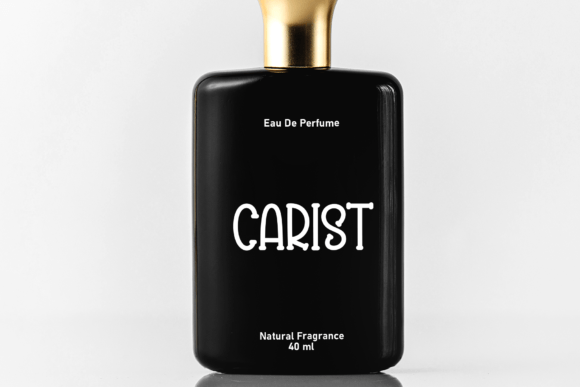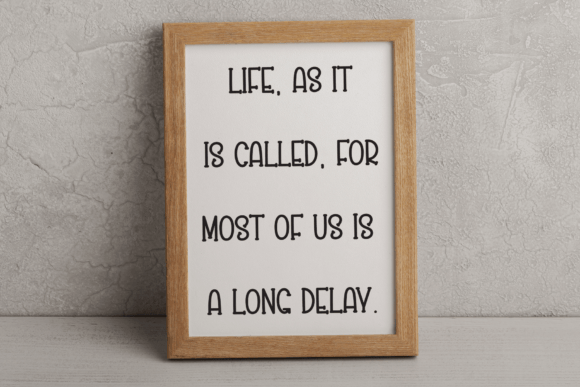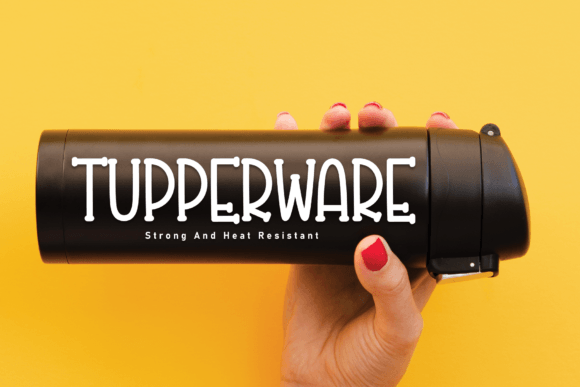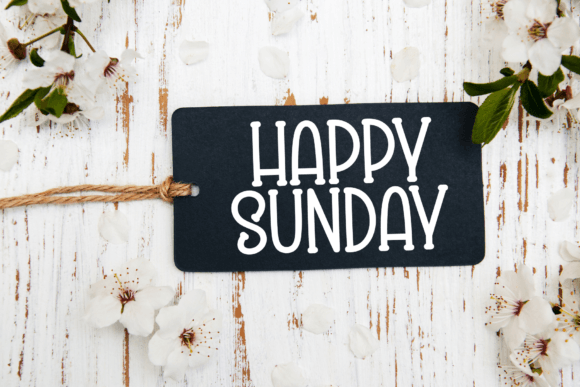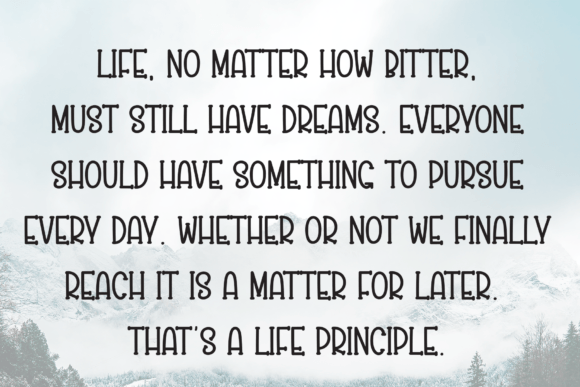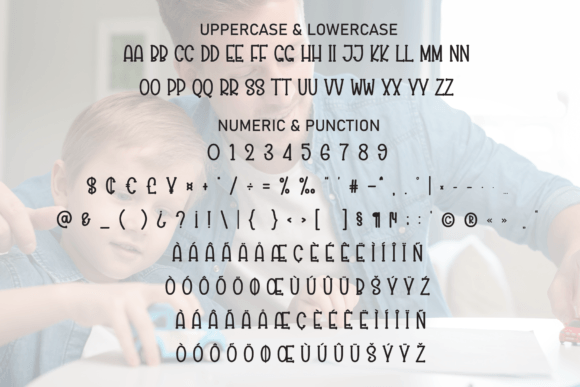
Introducing Father Font: The Perfect Handwritten Display Font for Your Designs
Are you looking for a font that can add a touch of warmth and friendliness to your designs? Look no further than Father Font, an endearingly handwritten display font that exudes joy and playfulness. With its charming and whimsical aesthetic, Father Font is perfect for infusing a delightful quirkiness into your projects, making it ideal for wedding invitations, cards, and any design that seeks a touch of fun and personality.
The Charm of Father Font
Father Font is a carefully crafted handwritten font that is designed to bring a sense of joy and carefree creativity to your designs. Its playful and charming aesthetic makes it perfect for designers and crafters who want to add a personal touch to their projects. Whether you’re creating wedding invitations, greeting cards, or any other design that requires a touch of whimsy, Father Font is the perfect choice.
What Makes Father Font Special?
So, what sets Father Font apart from other fonts? Here are a few features that make it special:
- Handwritten with love: Father Font is a handwritten font that is crafted with love and care, giving it a personal and unique touch.
- Warm and friendly: The font exudes warmth and friendliness, making it perfect for designs that require a touch of personality.
- Playful and whimsical: Father Font has a playful and whimsical aesthetic that is sure to add a touch of fun to your designs.
- Perfect for creative projects: Whether you’re a designer, crafter, or DIY enthusiast, Father Font is perfect for any creative project that requires a touch of personality.
How to Use Father Font in Your Designs
Using Father Font in your designs is easy. Here are a few tips to get you started:
- Wedding invitations: Father Font is perfect for wedding invitations, adding a touch of whimsy and romance to your designs.
- Greeting cards: The font is also great for greeting cards, making them more personal and special.
- Social media graphics: Father Font can add a touch of personality to your social media graphics, making them more engaging and fun.
- Branding and packaging: The font can also be used for branding and packaging, giving your products a unique and personal touch.
Tips for Pairing Father Font with Other Fonts
Pairing Father Font with other fonts can create a unique and interesting look. Here are a few tips for pairing Father Font with other fonts:
- Pair with a serif font: Pairing Father Font with a serif font can create a nice contrast and add depth to your designs.
- Pair with a script font: Pairing Father Font with a script font can create a romantic and whimsical look.
- Pair with a bold font: Pairing Father Font with a bold font can create a nice contrast and add emphasis to your designs.
In conclusion, Father Font is a delightful handwritten display font that can add a touch of warmth and friendliness to your designs. With its charming and playful aesthetic, it’s perfect for infusing a delightful quirkiness into your projects. Whether you’re a designer, crafter, or DIY enthusiast, Father Font is a great choice for any creative project that requires a touch of personality. So why not give it a try and see how it can awaken a sense of joyous adventure in your design projects?
Get Ready to Fall in Love with Father Font